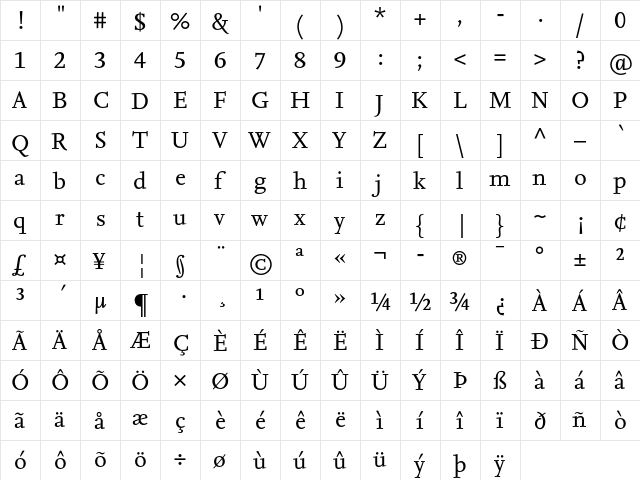
NexusSerifTF-Regular Font Preview
NexusSerifTF-Regular Regular
NexusSerifTF-Regular Font Details
Design Context for NexusSerifTF-Regular Typeface
NexusSerifTF-Regular carries the refined structure of traditional serif typography, with bracketed terminals and considered proportions that communicate credibility and craft.
Pro Tip: Set NexusSerifTF-Regular with slightly loose tracking in headlines to let each letterform's detail read clearly at display sizes.